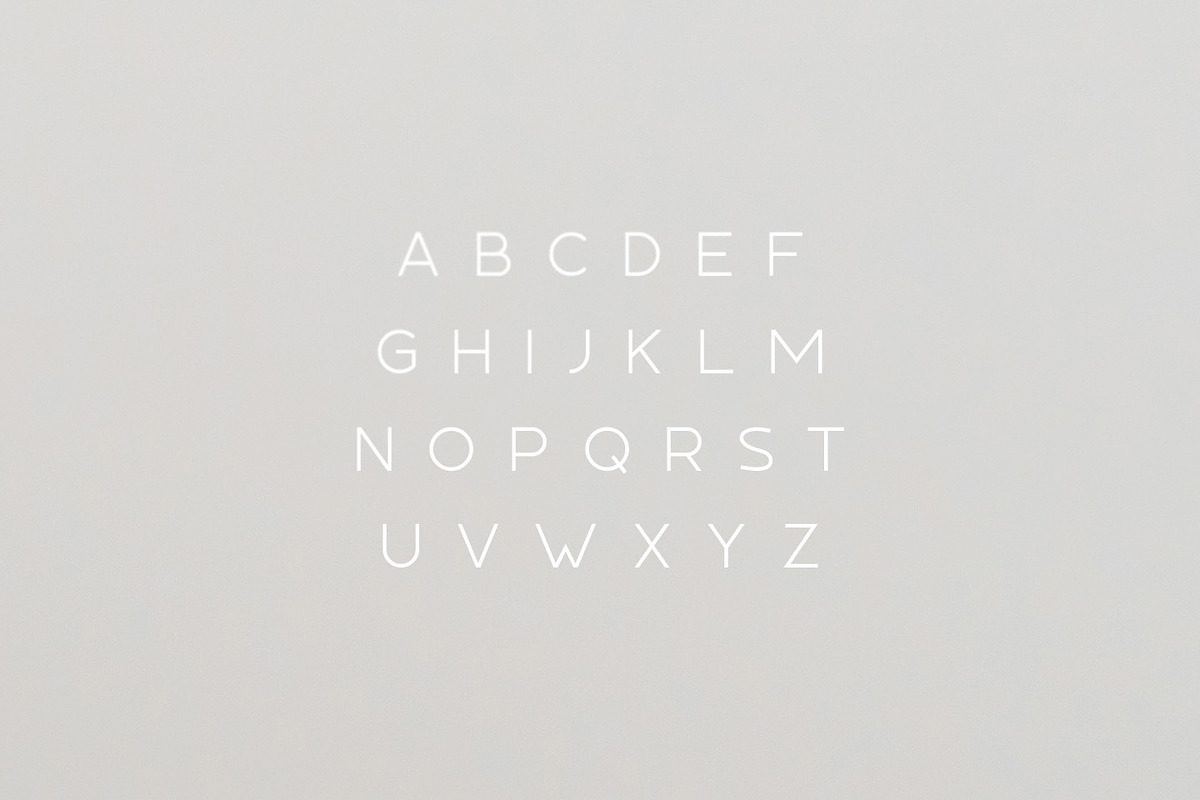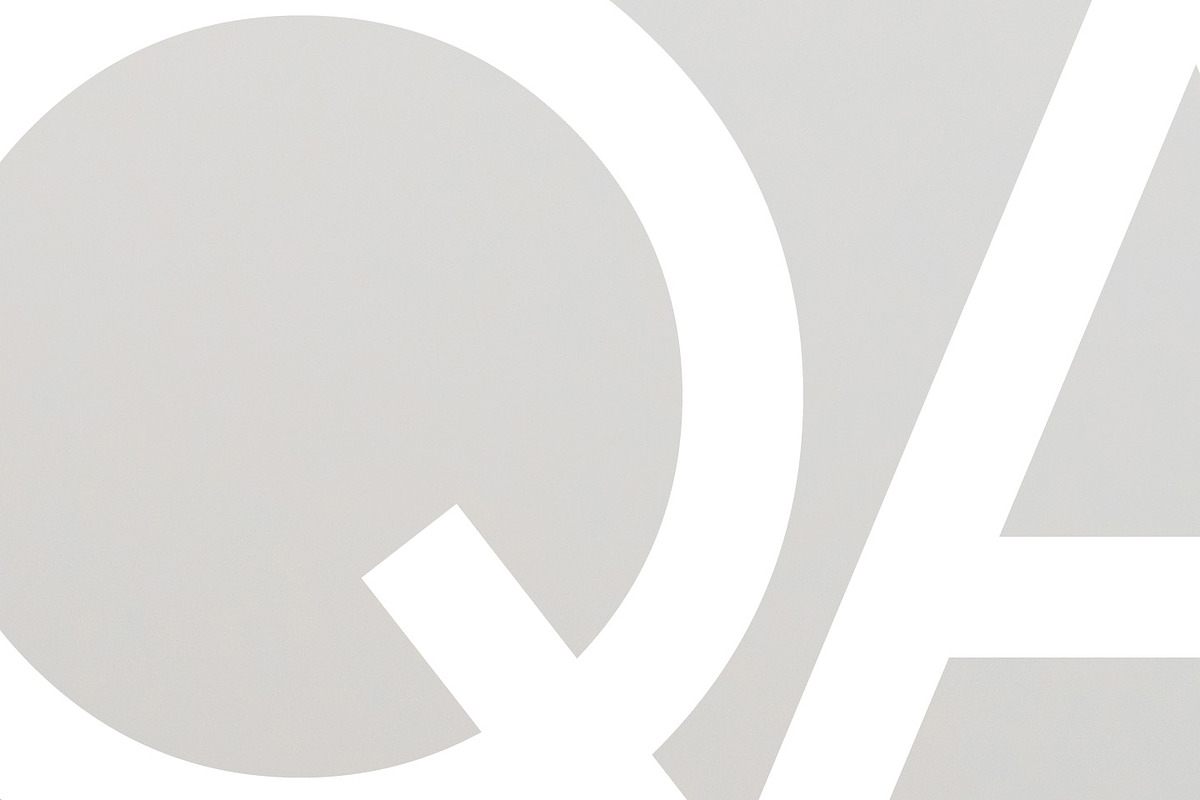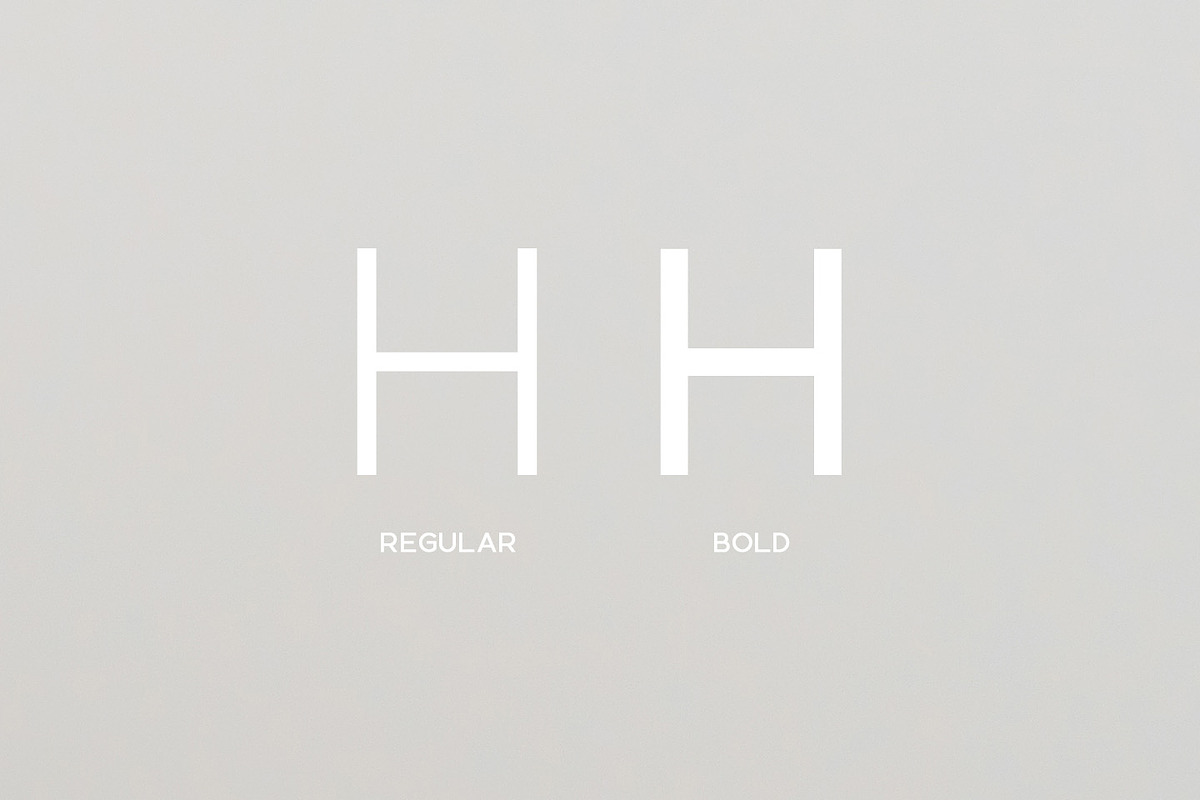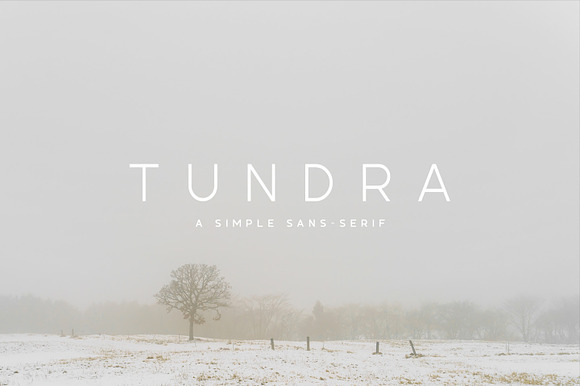
Tundra Typeface
Tundra is a simple sans serif display font in two weights. It includes uppercase multilingual letters, numbers and punctuation.
Tundra Typeface by Tugcu Design Co. fits naturally into Branding, posters, packaging, typography.